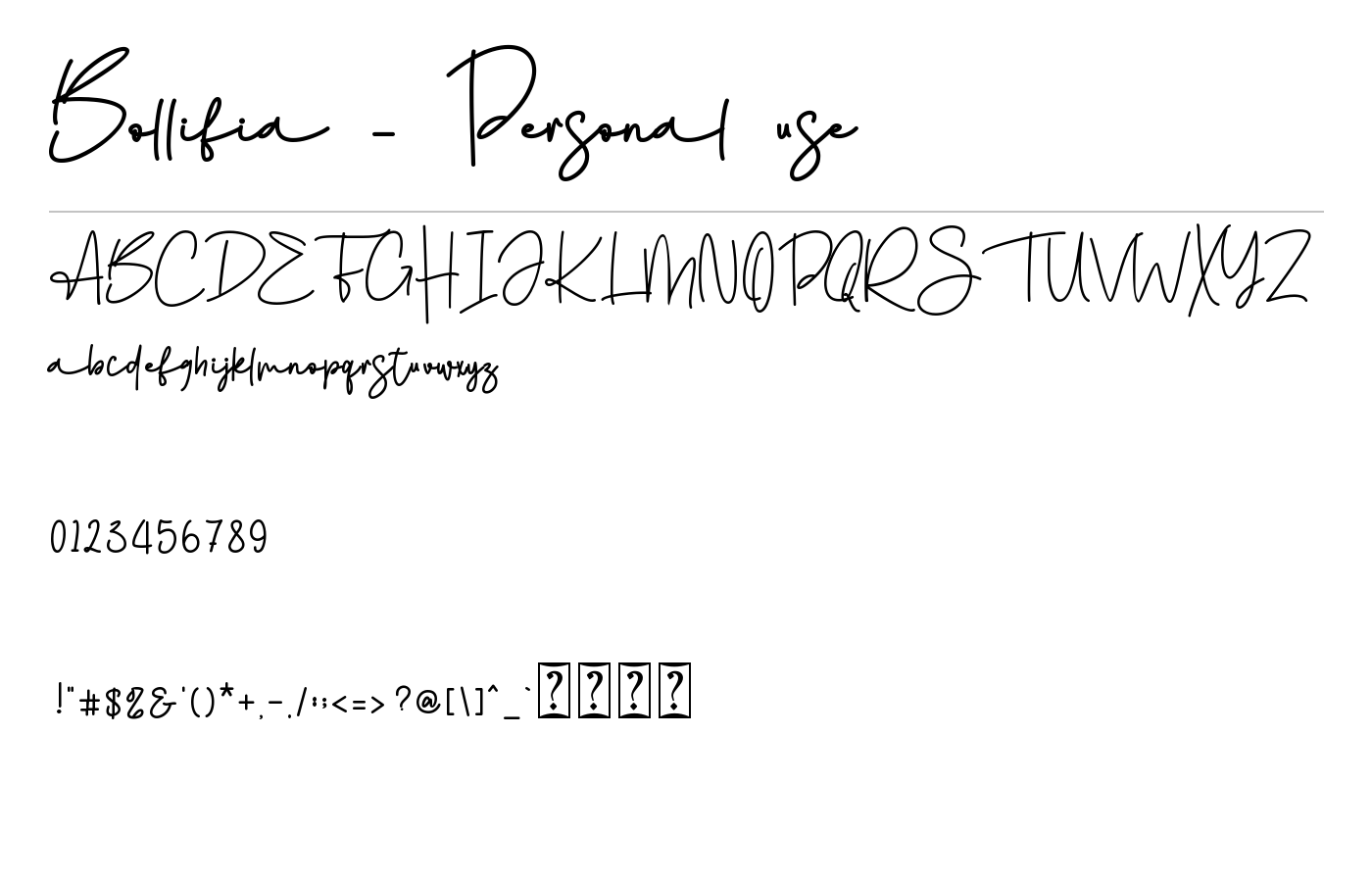
Bollifia is a playful and elegant handwritten script font with a light, airy feel and tall, narrow letterforms. Its loose, casual strokes and unique letter shapes bring a personal, creative touch that works well for invitations, branding, and informal designs. This font adds a charming, approachable vibe while maintaining readability and style in both headlines and decorative text.
Bollifia - Personal use Font
About Bollifia - Personal use Font